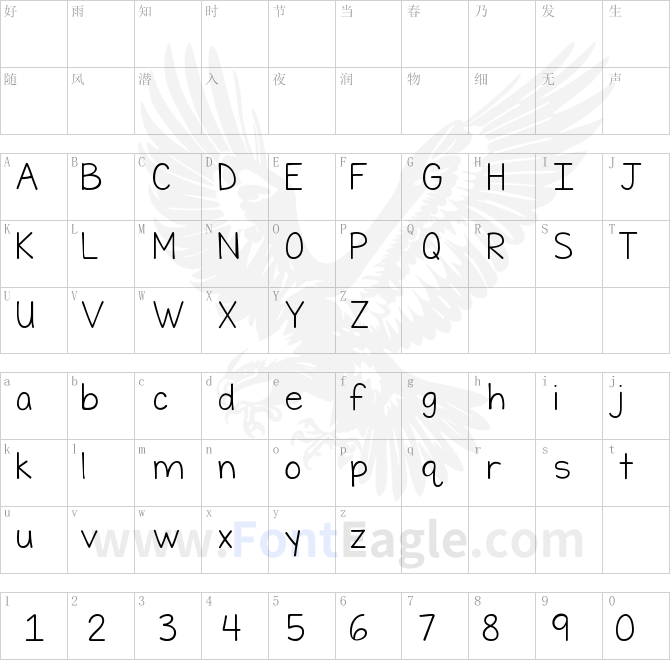
- Font name:KG First Time In Forever
- Font Subfamily ID:KimberlyGeswein: KG First Time In Forever: 2014
- Font Full Name:KG First Time In Forever
- Postscript:KGFirstTimeInForever